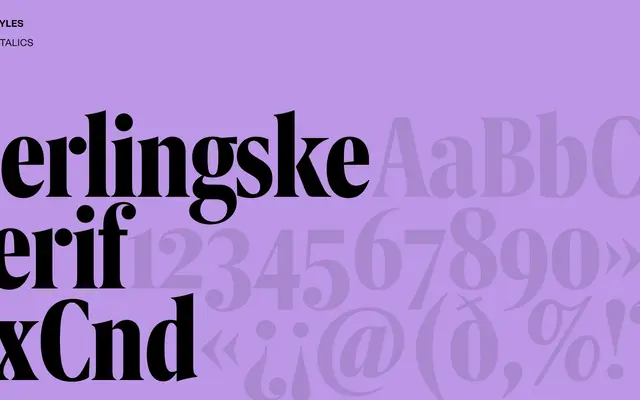
Berlingske Serif Extra Condensed
Berlingske Serif Extra Condensed specimen from Playtype
An extra condensed serif cut from the Berlingske family, suited to narrow columns and bold editorial headlines.
Part of the wider Berlingske type system, this extra condensed serif is built for situations where horizontal space is at a premium. Its extreme compression makes it well suited to tabloid-format headlines, pull quotes and editorial contexts where the serif's structure still needs to read at large sizes. The Berlingske name suggests a connection to Scandinavian newspaper traditions.
The name and visual context suggest a tightly condensed serif, likely intended for editorial and display use given its extreme width compression.